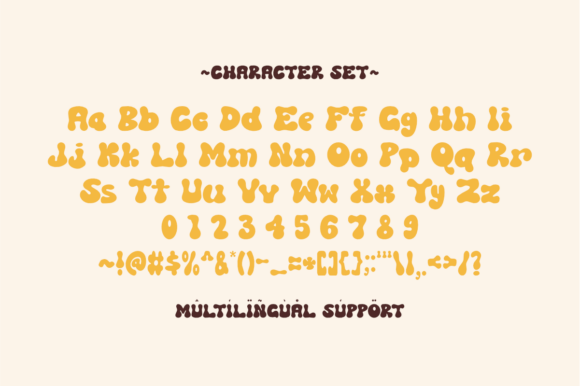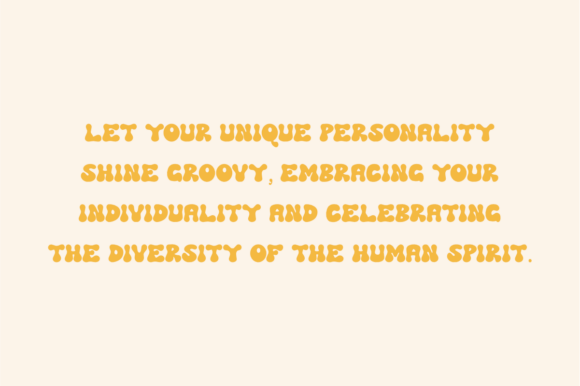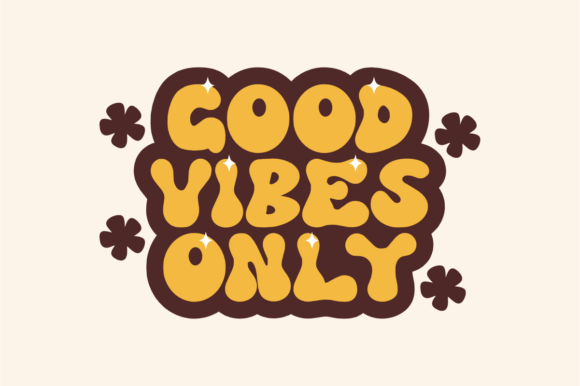
Introduction to Shine Groovy Font
Who hasn’t stumbled upon an old vinyl record or a vintage poster and felt an instant rush of creativity? The charm of retro designs is undeniable, and for designers, it’s a treasure trove of inspiration. One font that embodies the spirit of the 70s is the Shine Groovy Font – a playful and bubbly groovy font that’s perfect for adding a nostalgic touch to any creative project.
As a design resource, Shine Groovy Font offers a high-quality, transparent background that makes it a breeze to work with. Whether you’re designing a funky headline, creating social media graphics, or working on a children’s book, this font is sure to shine. And the best part? It’s available for free download, making it an invaluable addition to any designer’s toolkit.
- Unique, hand-crafted design with a groovy vibe, perfect for adding a touch of personality to any creative project.
Honest Review: Shine Groovy Font
I recently came across the Shine Groovy Font, and I must say it’s been a great addition to my design arsenal. The font is a high quality resource that can elevate any creative project.
- The font’s unique design makes it perfect for use in creative projects where a funky, playful vibe is desired.
- The transparent background allows for seamless integration with any background image or color.
Overall, I’m impressed with the Shine Groovy Font’s versatility and style.
- The font may not be suitable for formal or professional projects due to its playful design.
- The free version may have some limitations, such as limited character sets or customization options.
In conclusion, the Shine Groovy Font is a great resource for designers looking to add some personality to their creative projects. While it may not be perfect for every situation, it’s definitely worth considering for your next design project.
Getting the Most Out of Shine Groovy Font
To get the most out of the Shine Groovy Font, try using it in conjunction with other design elements to create a cohesive and visually appealing design. Experiment with different font sizes and colors to add depth and interest to your design.
The Shine Groovy Font is perfect for a variety of creative projects, including graphics, presentations, and documents. Its high quality and transparent background make it a great choice for designers looking for a unique and eye-catching font.